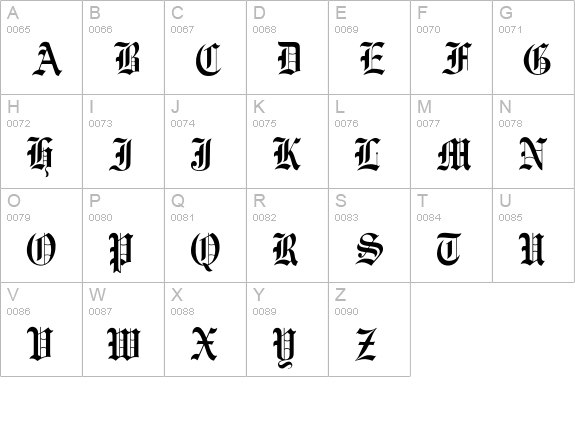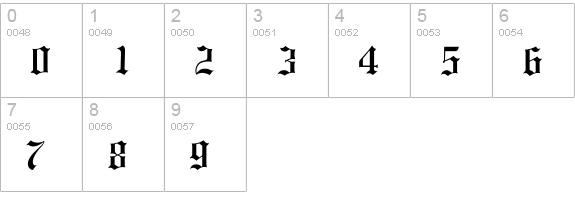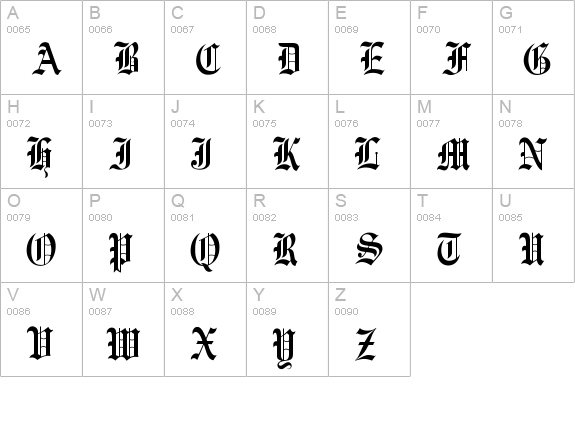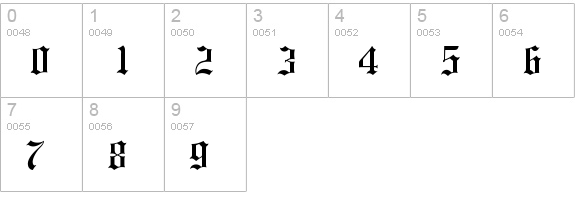
OPTIEngraversOldEnglish Font Details
OPTIEngraversOldEnglish is a classic and elegant font that exudes a sense of tradition and sophistication. Its intricate details and ornate design make it perfect for adding a touch of vintage charm to any project. With its timeless appeal and historic feel, this font is ideal for creating invitations, certificates, or any design that calls for a touch of old-world elegance. The OPTIEngraversOldEnglish font is not only visually striking but also versatile, making it suitable for a wide range of creative projects. Whether you're designing a wedding invitation, crafting a logo, or working on a branding project, this font will add a touch of sophistication and style. Best of all, OPTIEngraversOldEnglish is available for free download at FontsMarket.com. This means you can easily access this stunning font and use it in your projects without any cost. Don't miss out on the opportunity to enhance your designs with the timeless appeal of OPTIEngraversOldEnglish font. Download it today and add a touch of old-world charm to your creations.